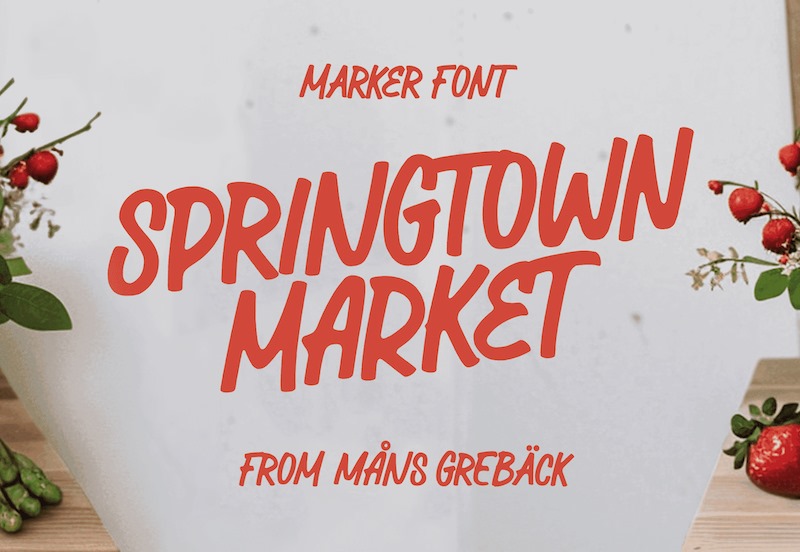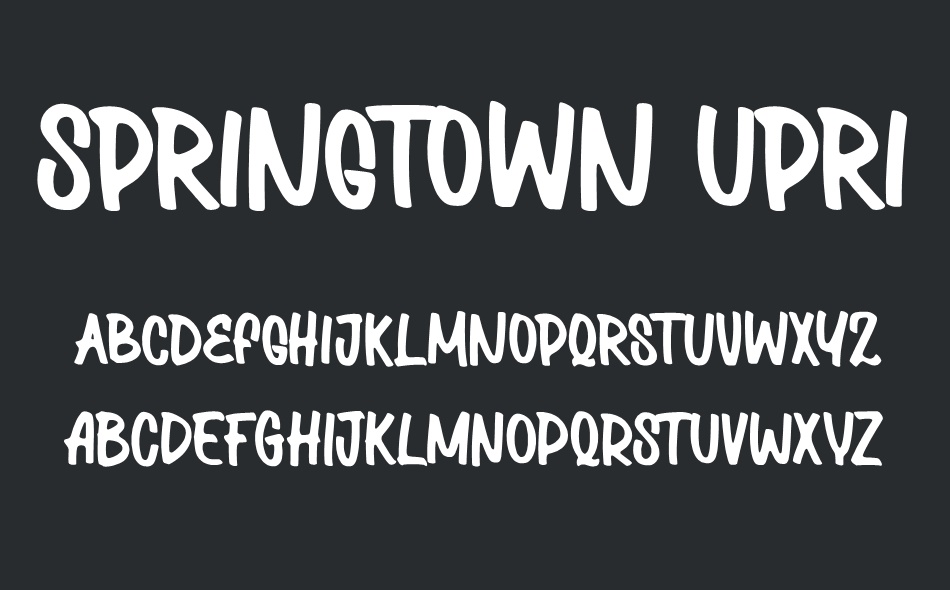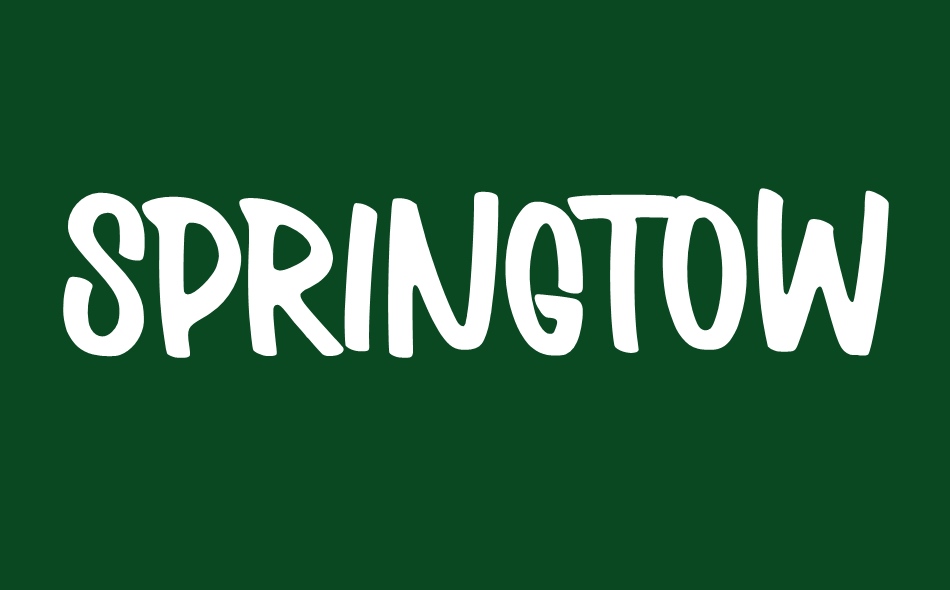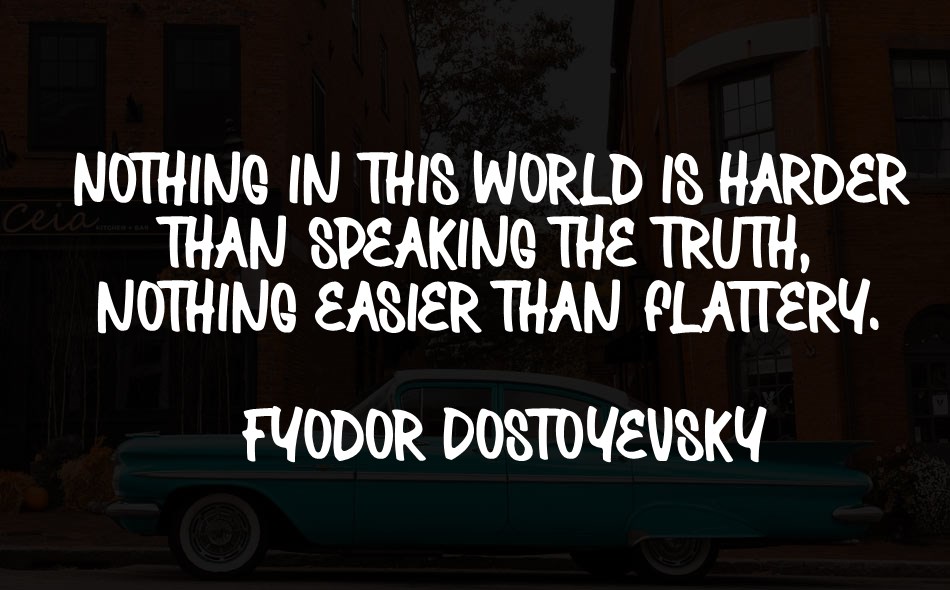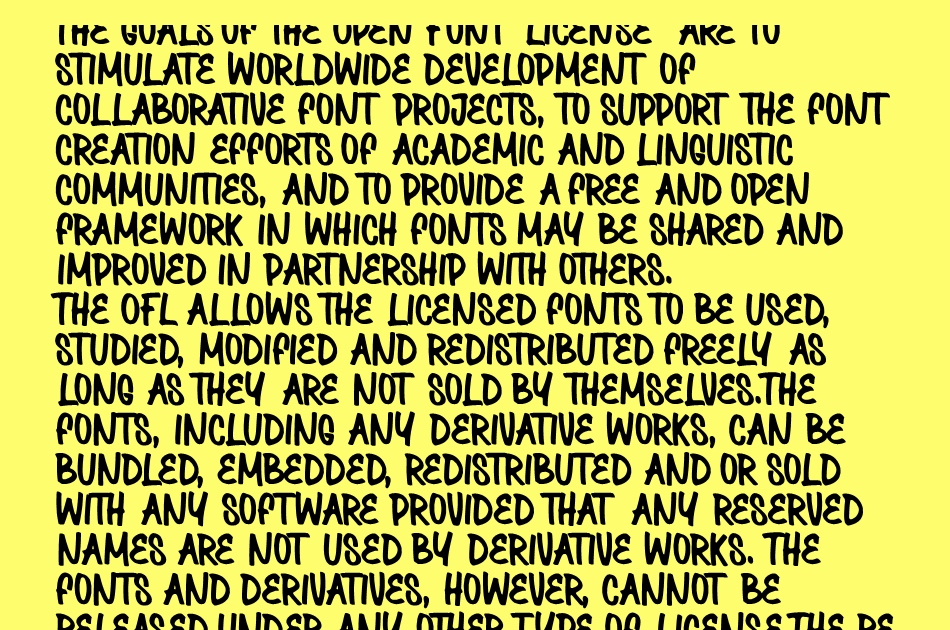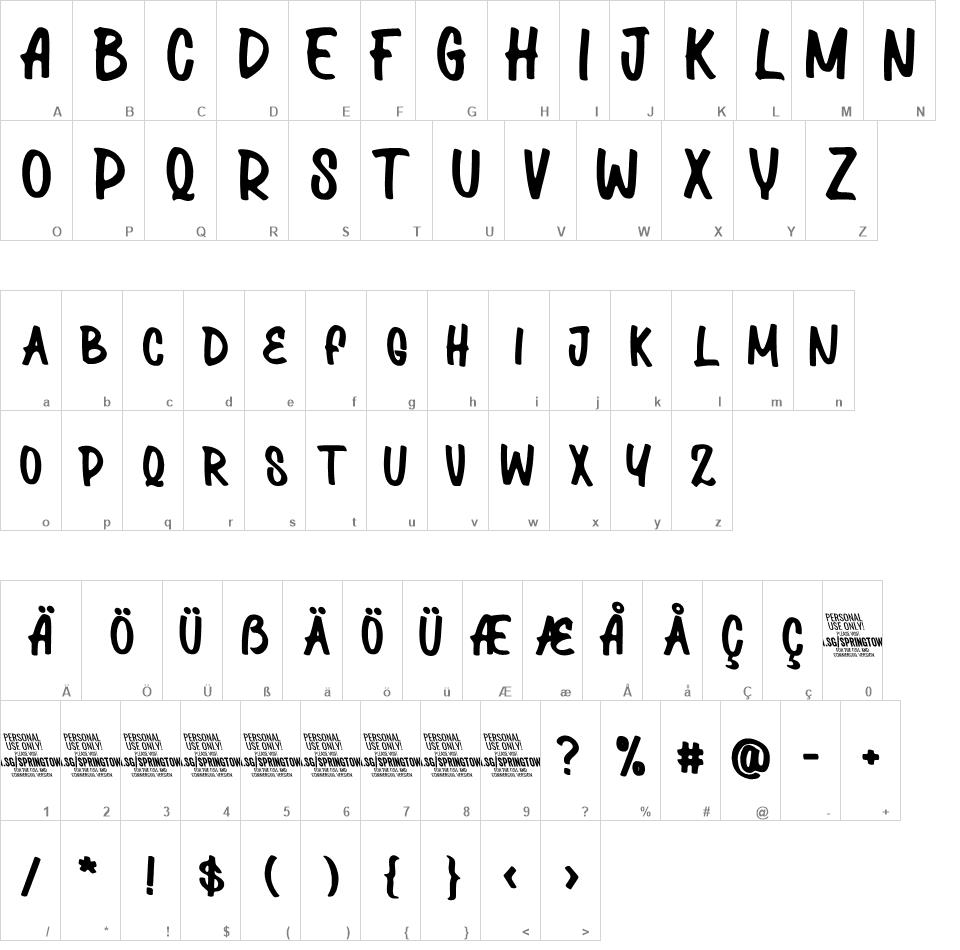
Springtown Market font
Springtown Market is a lively font inspired by a flowering and lively market.
Springtown Market is a lively font inspired by the hustle and bustle of bustling marketplaces.
With its handwriting-style design, it carries the fluidity and personal touch of a marker pen, bringing an authentic, handcrafted feel to your designs.
Its active strokes and energetic flair embody a sense of motion and vivacity, perfect for capturing the dynamic spirit of urban life. The vivid, bold characters of Springtown Market are designed to stand out, making a statement on any canvas. The slant in the letterforms adds a sense of urgency and forward motion, evoking the energy of a town in motion.
The font is built with advanced OpenType functionality and guaranteed top-notch quality, containing stylistic and contextual alternates, ligatures and more automatic and manual features; all to give you full control and customizability.
It has extensive lingual support, covering all Latin-based languages, from North Europa to South Africa, from America to South-East Asia. It contains all characters and symbols you'll ever need, including all punctuation and numbers.
Springtown Market is a creation of Mans Greback, a renowned font designer known for his ability to capture the essence of a concept in typographic form. His work often blends traditional techniques with modern flair, resulting in fonts that are both timeless and contemporary.